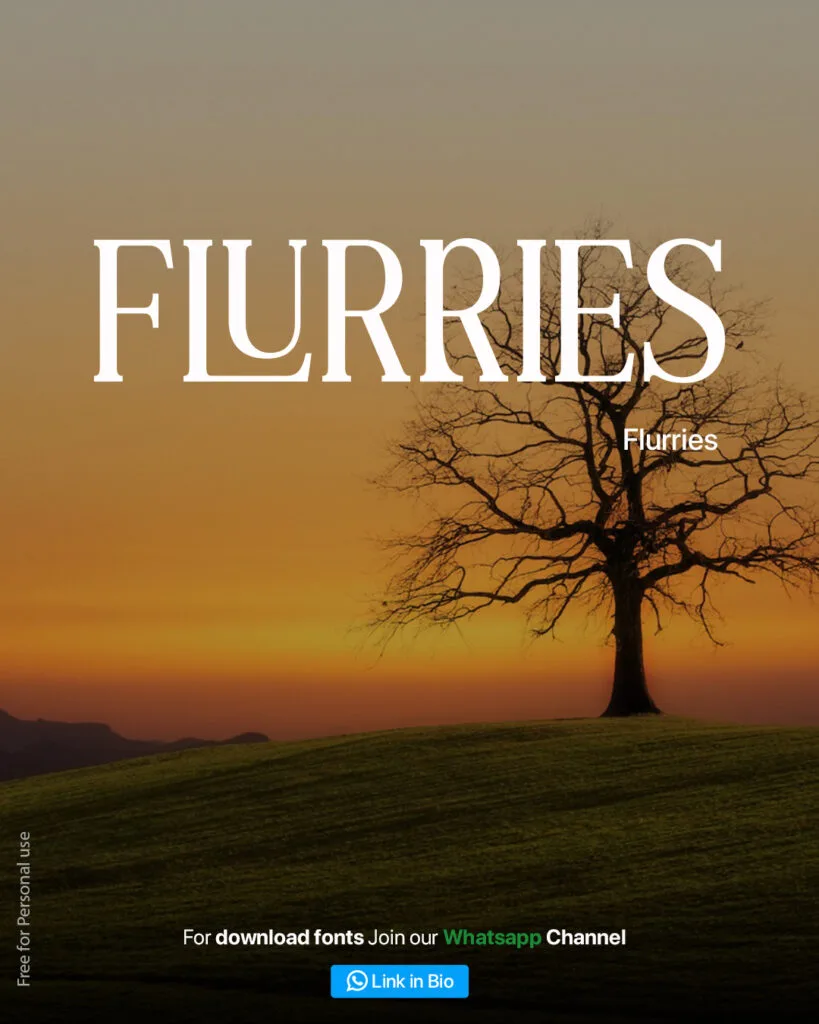
Looking to connect with the vibrant and dynamic Gen Z audience? Choosing the right fonts can make all the difference in grabbing their attention and keeping them engaged. Gen Z values creativity, individuality, and modern aesthetics, so your font choices should reflect those qualities.
From bold and edgy designs to sleek and minimal styles, fonts that resonate with this generation often blend innovation with a touch of playfulness. Whether youāre designing for social media, websites, or marketing materials, the right typography can help you create a vibe that truly speaks to Gen Zās unique tastes.
Qioba Font
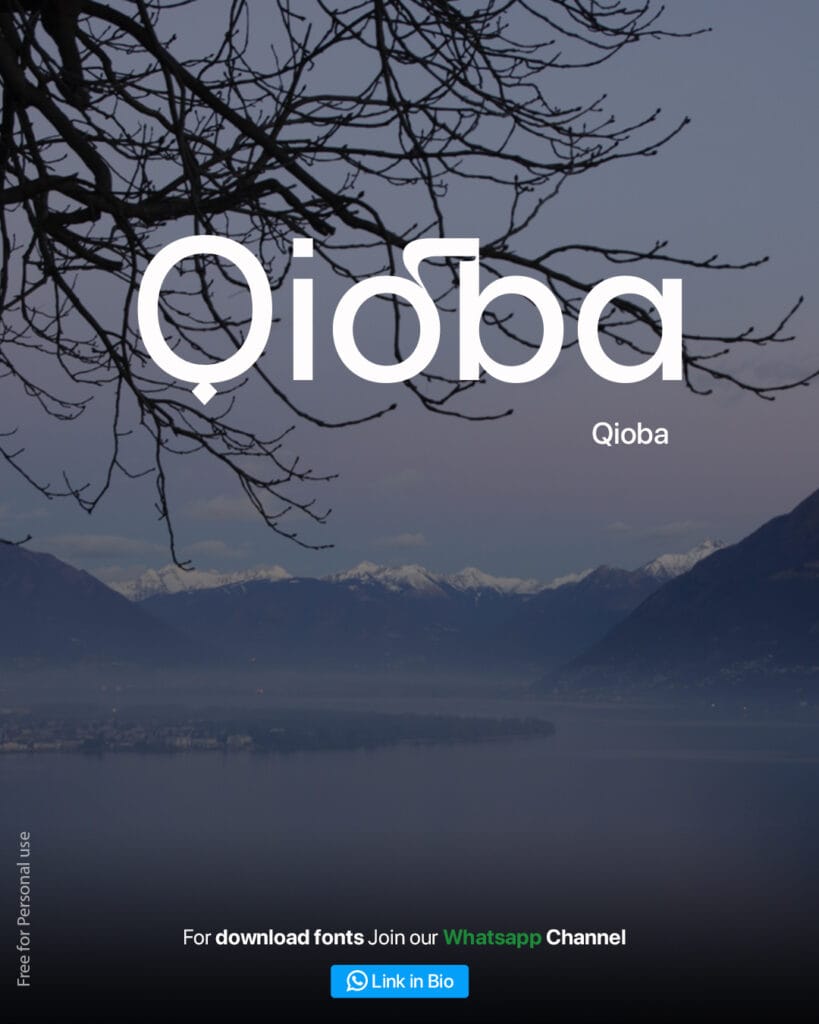
Celinda Font
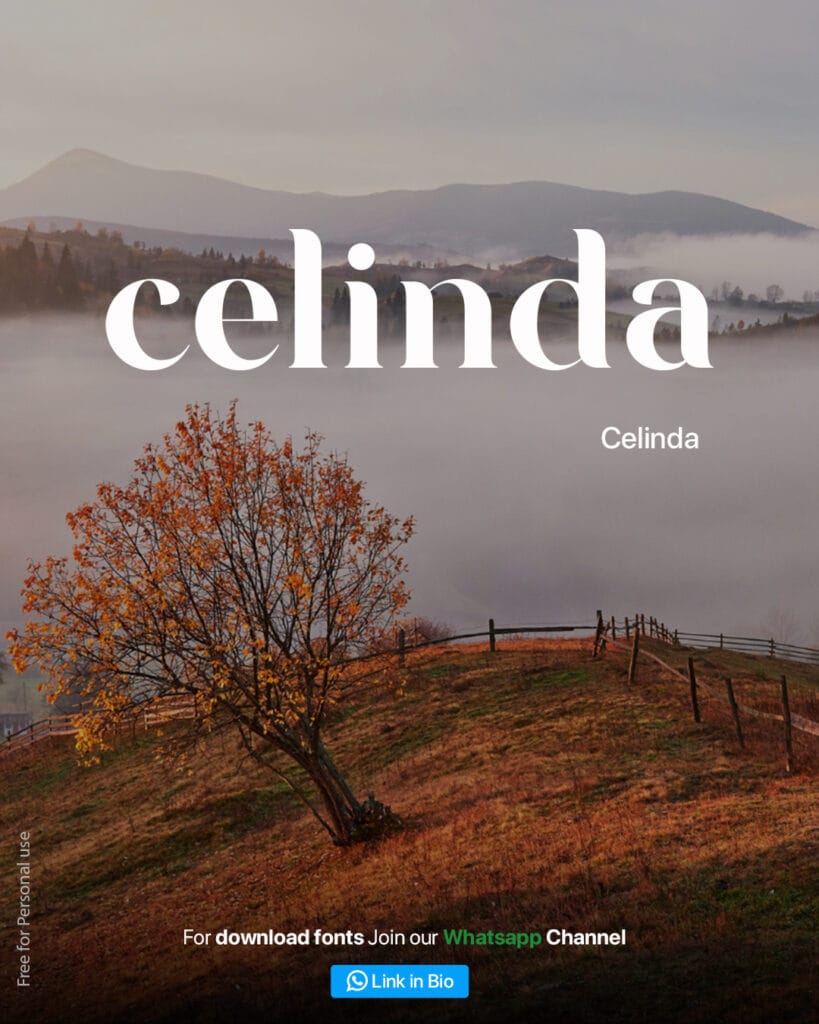
Retro Reflections Font
Flurries font
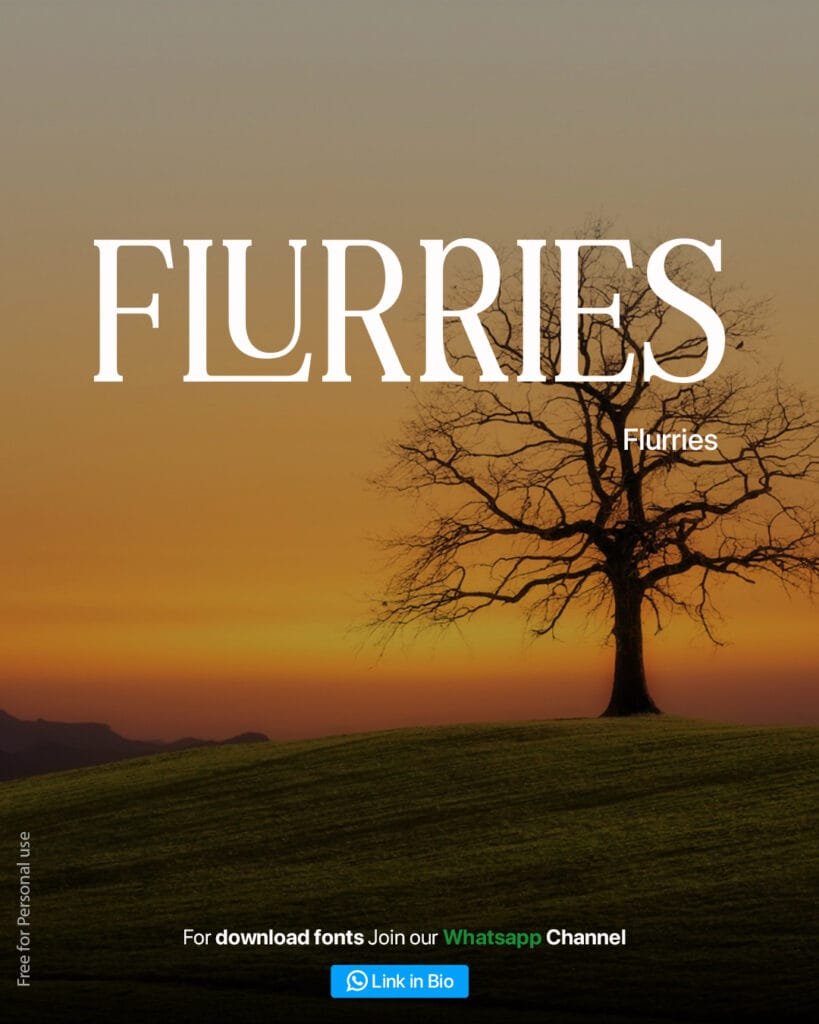
Awake Font
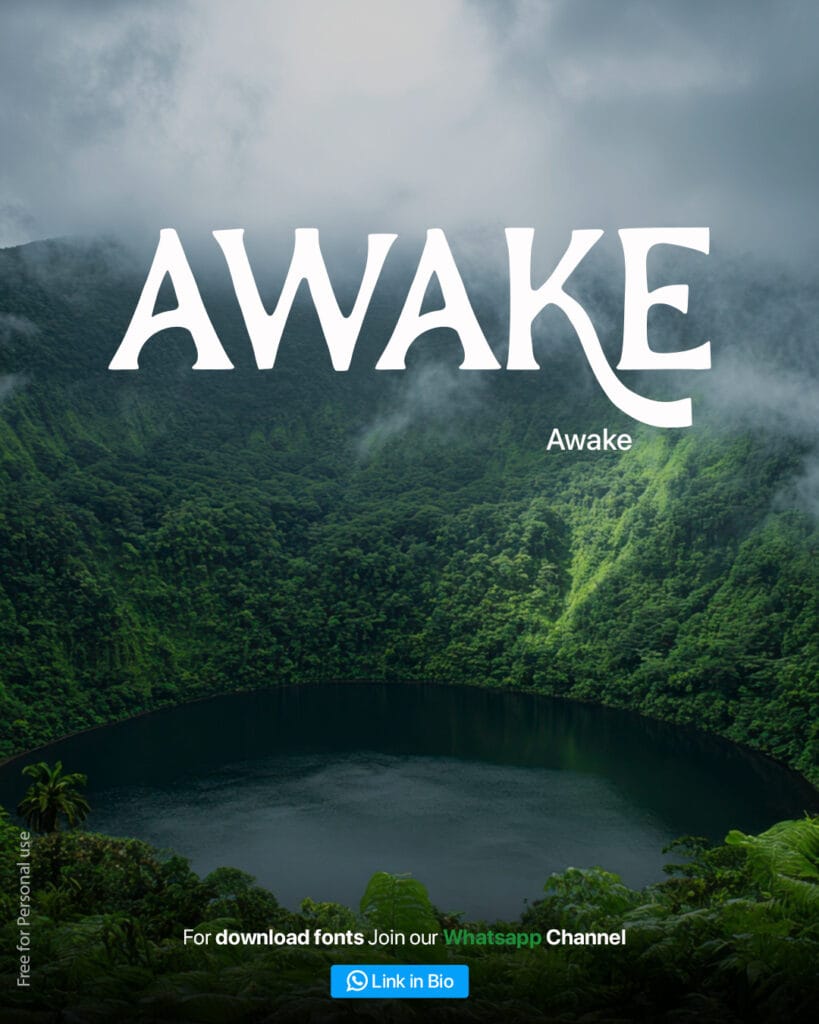
Disca Font